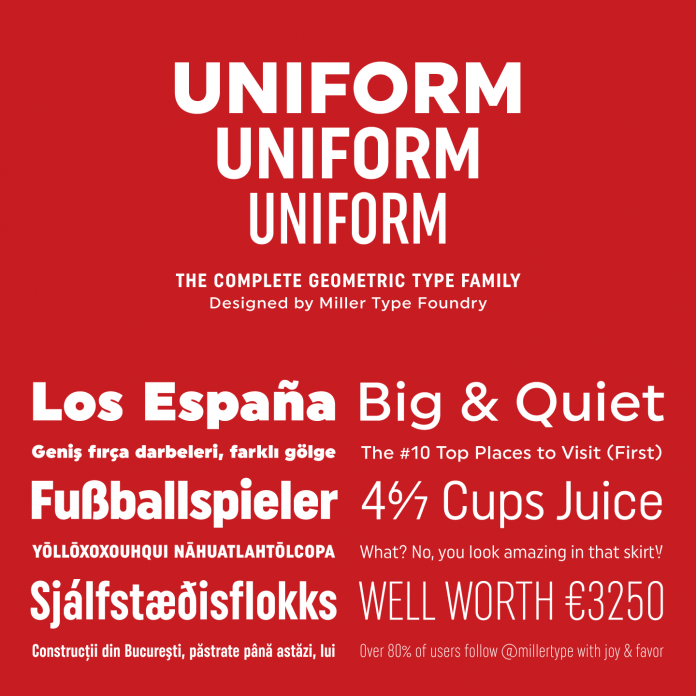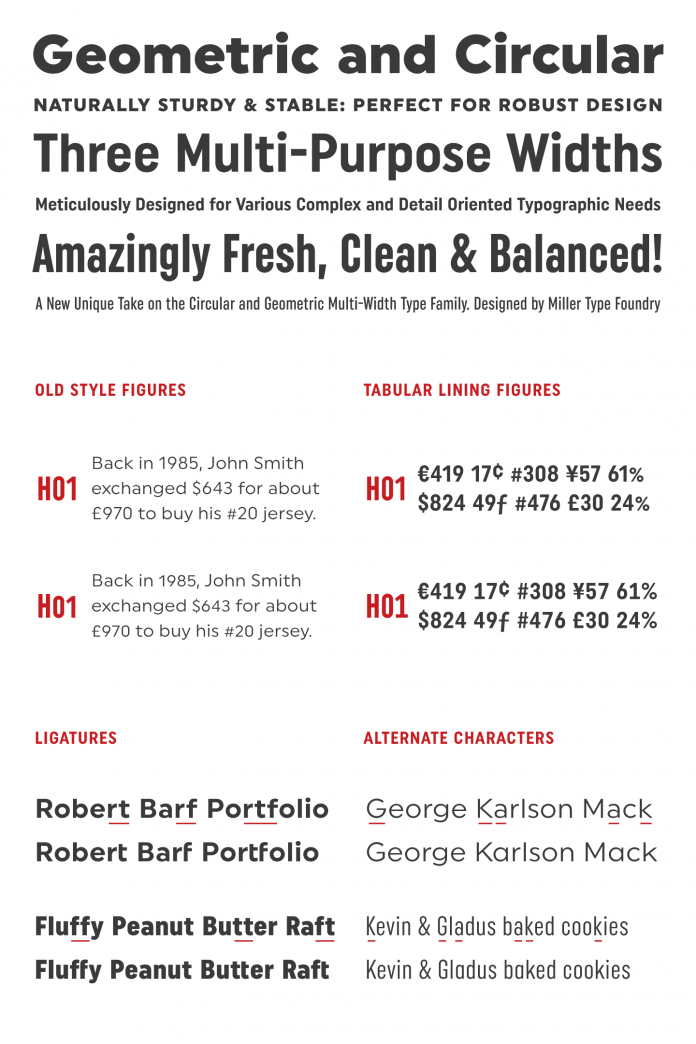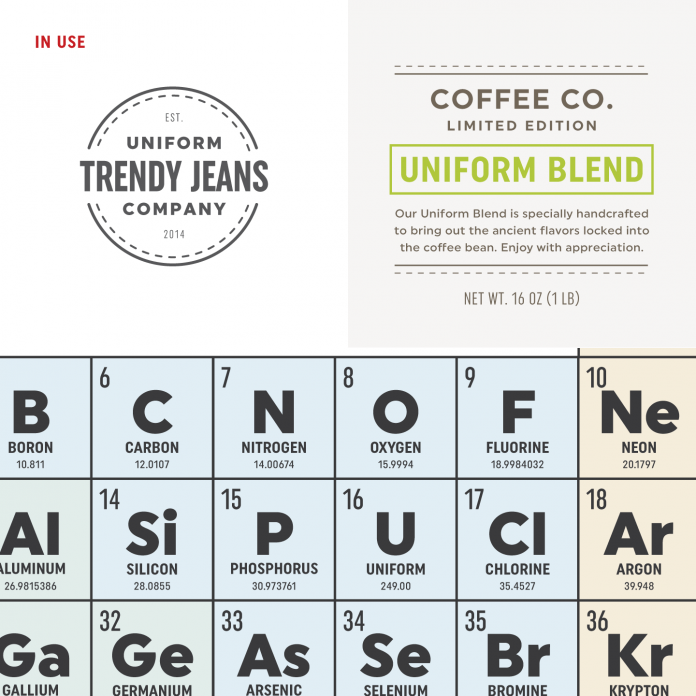
The Uniform font family, a multi-width geometric typeface by Richard Miller.
Richard Miller is a type and graphic designer as well as founder of the Miller Type Foundry. In 2014, he recently created the Uniform font family, which is a multi-width geometric typeface based on a simple circle. Richard Miller designed the O of the Regular width on the basis of a real circle, while the O of the Condensed width is based on 1.5 circles stacked with straight sides and the O of the Extra Condensed width is based on two circles stacked with straight sides as well. All other letters of this sans serif family are derived from this initial ratio. This concept results in a well balanced geometric typeface. It bridges the gap between circular fonts and condensed typefaces. The Uniform font family works great for both headlines as well as long and small texts.
The family is equipped with several OpenType features such as Old Style Figures, Tabular Lining Figures, Alternate characters, Ligatures, and much more.